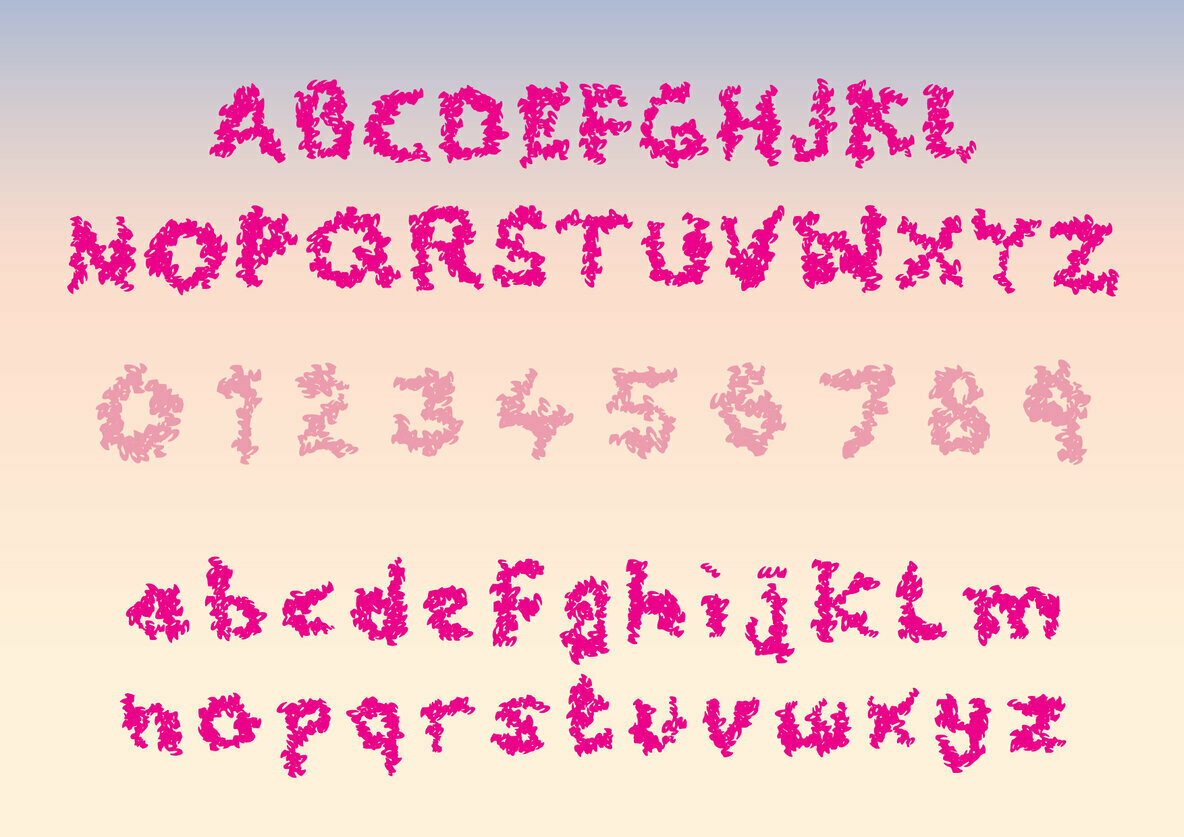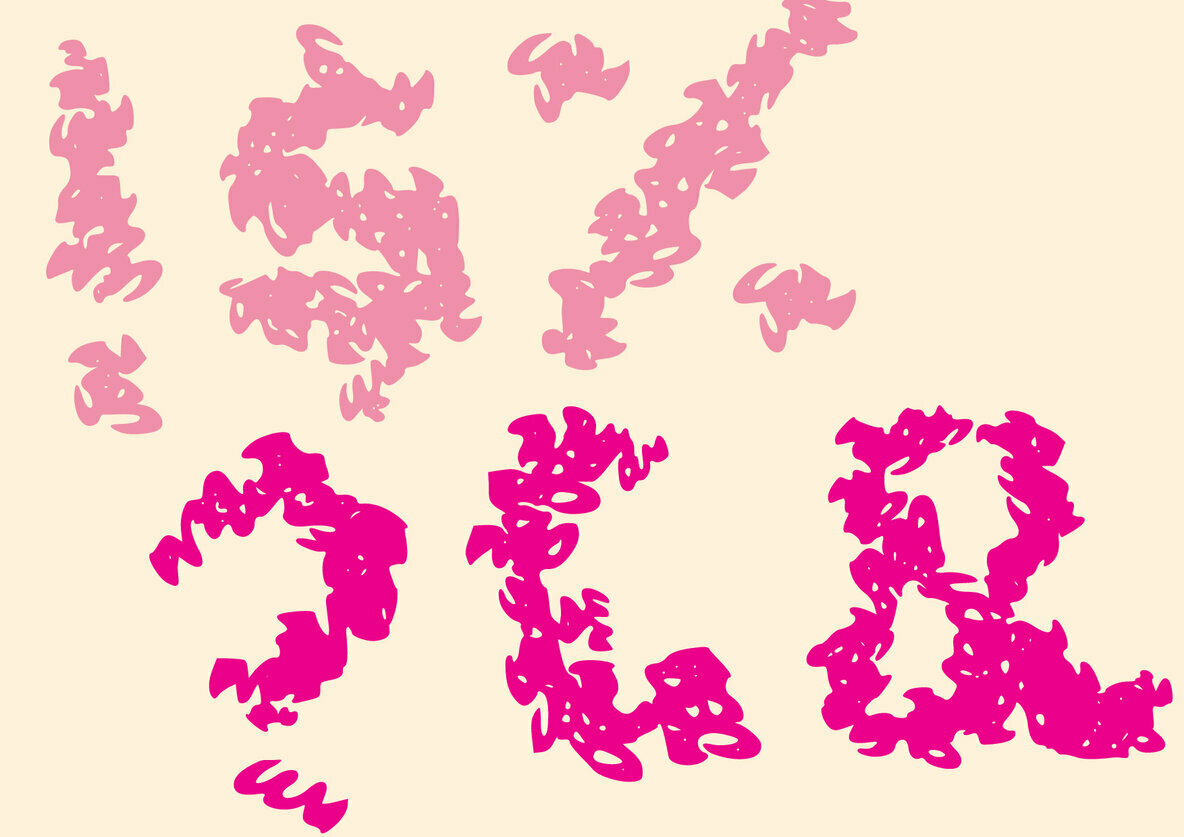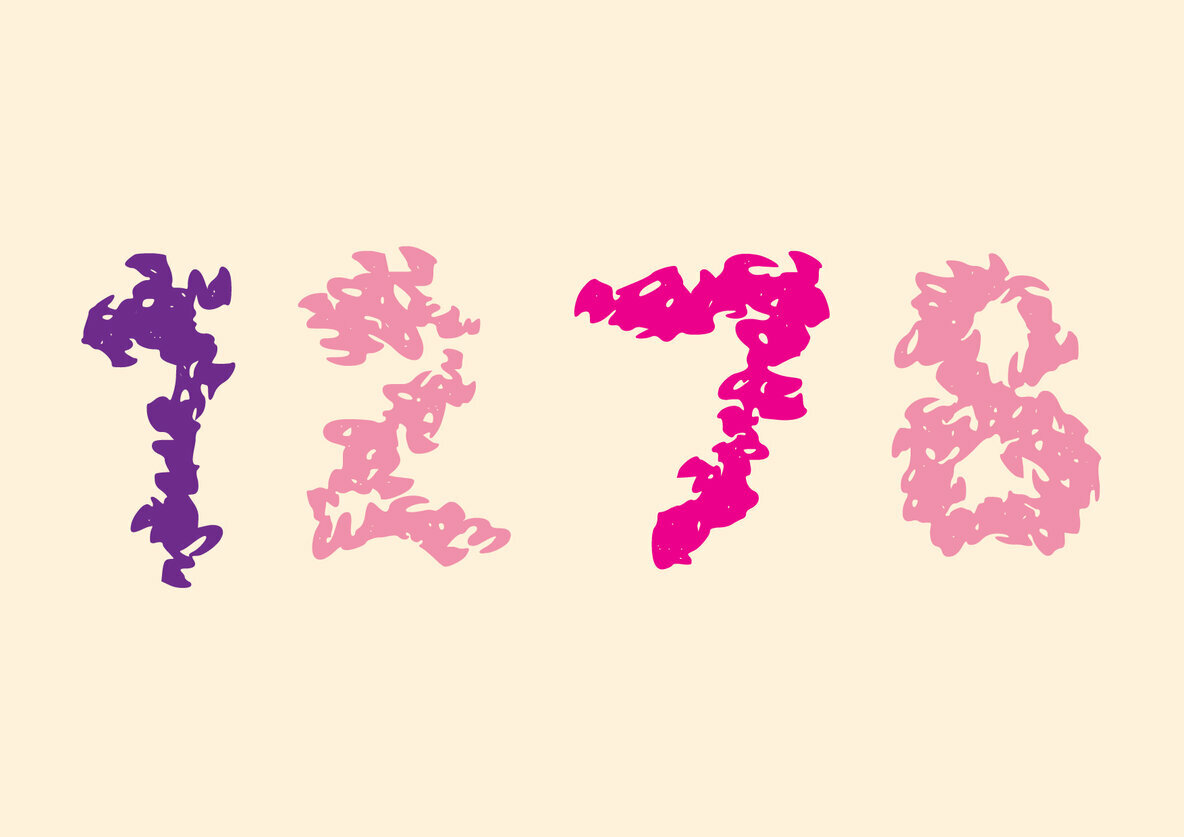
Feathers Font
Feathers
Feathers embodies fun, quirkiness and authenticity. Get creative with its unique playfulness, and use it to brighten up your upcoming crafting projects!